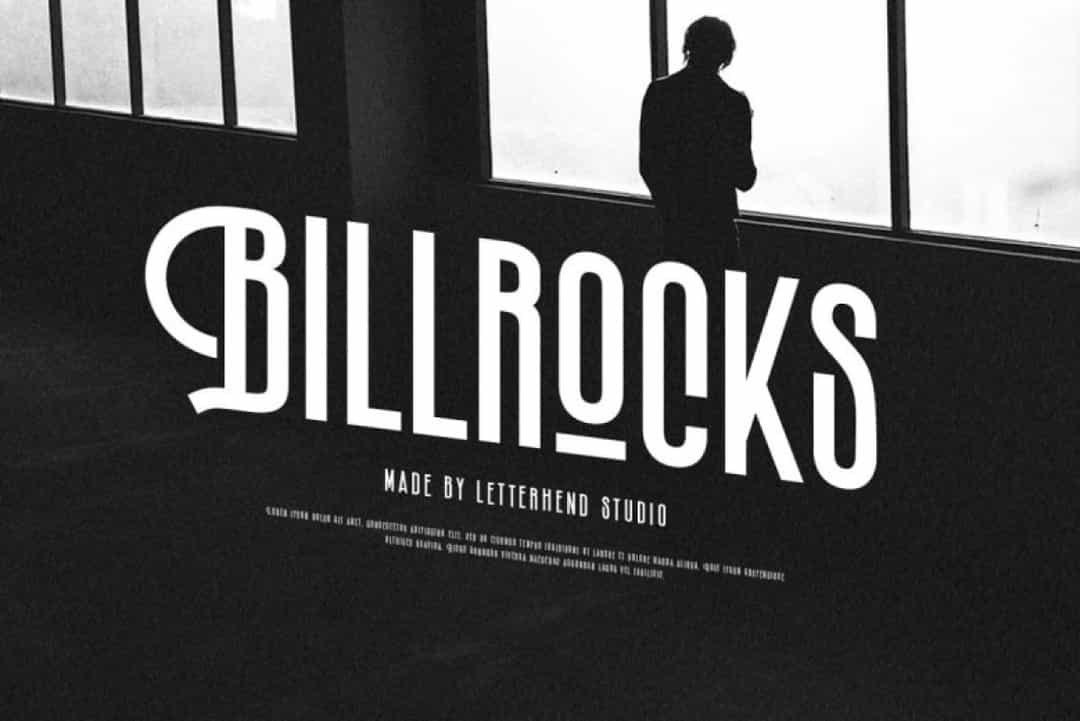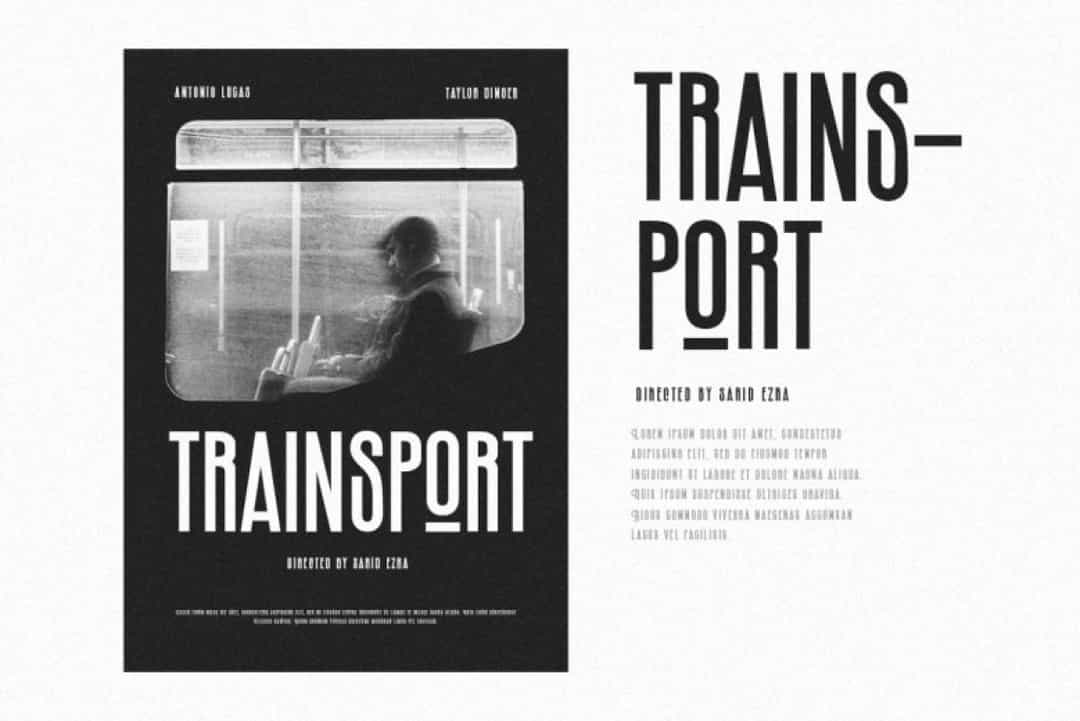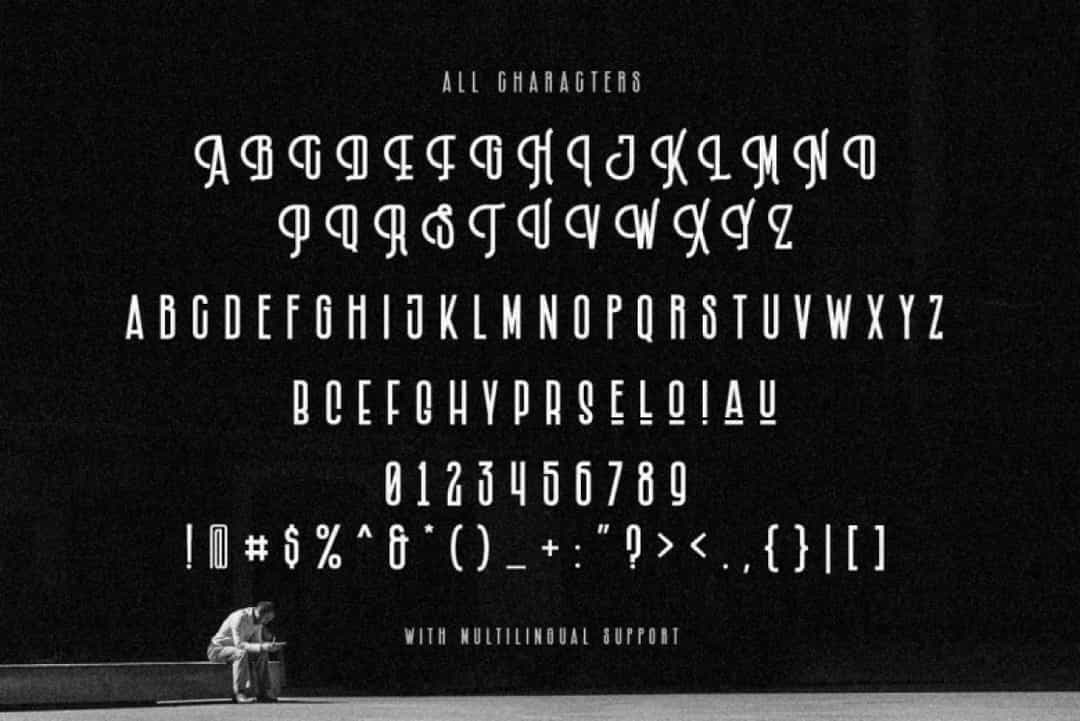
Billrocks is an eye-catching display typeface sans serif, featuring its condensed design to stand out in headlines or logos. Perfect for formal documents like labels, invitations and books as well as logos magazines wedding/greeting cards packaging fashion makeup books stationery novel labels or for any other advertisement use!